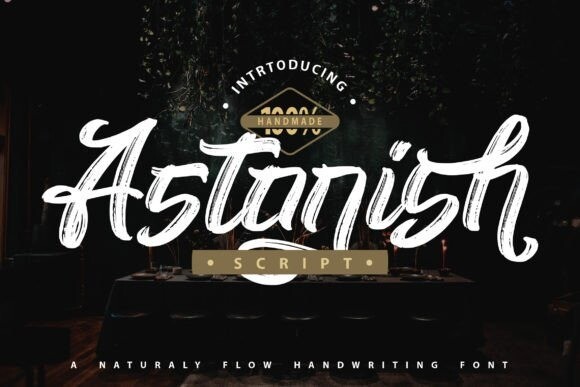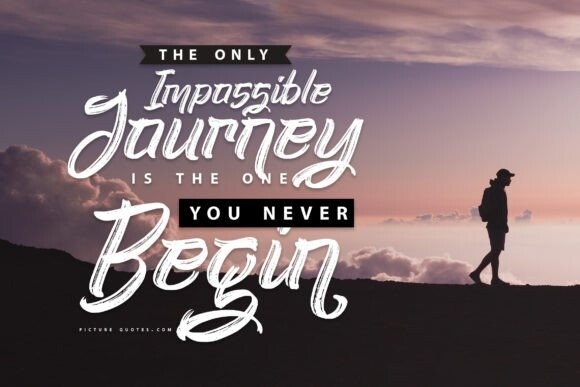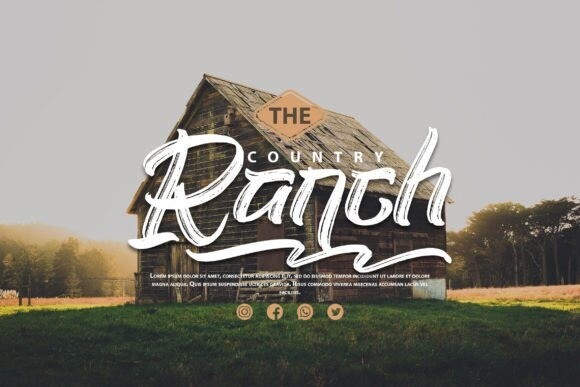
Astonish Font
Astonish is a modern and cool brush script font. Fall in love with its incredibly distinct and timeless style and use it to create spectacular designs!